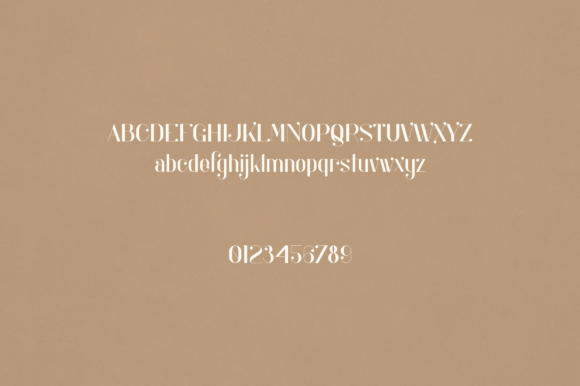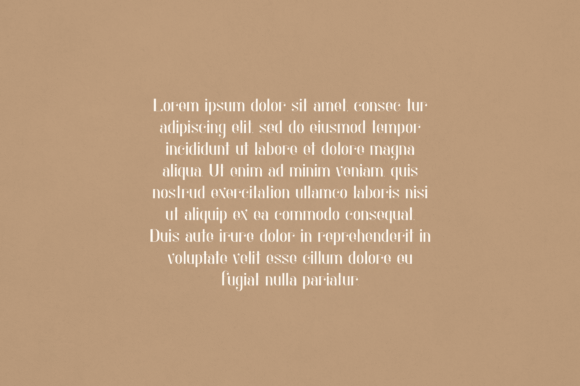
Aldari Font: Elevate Your Typography with Elegance and Versatility
Are you tired of using the same old fonts for your design projects? Look no further than Aldari Font, an elegant and versatile display font that will take your typography to the next level. With its unique charm and sophisticated style, Aldari is perfect for designers and crafters looking to add a touch of luxury to their work.
What is Aldari Font?
Aldari Font is a display font designed to make your typography truly unique. Its elegant and versatile design makes it perfect for a wide range of applications, from logos and branding to headlines and plain text. Whether you’re working on a branding project, home-ware design, product packaging, or magazine header, Aldari Font is the perfect choice.
Key Features of Aldari Font
- Elegant and Versatile Design: Aldari Font boasts an elegant and versatile design that will add a touch of sophistication to any project.
- Unique Charm: With its unique charm, Aldari Font will make your typography stand out from the crowd.
- Perfect for Branding Projects: Aldari Font is perfect for branding projects, including logos, business cards, and letterheads.
- Suitable for Home-Ware Designs: Add a touch of elegance to your home-ware designs, including product packaging and labels.
- Great for Magazine Headers: Use Aldari Font to create stunning magazine headers that will grab attention.
- Works Well as a Text Overlay: Aldari Font is perfect for use as a stylish text overlay to any background image.
Why Choose Aldari Font?
There are many reasons why Aldari Font stands out from the crowd. Here are just a few:
- High-Quality Design: Aldari Font is designed with high-quality and attention to detail, ensuring that it will look great in any project.
- Easy to Read: Despite its elegant design, Aldari Font is easy to read, making it perfect for use in a wide range of applications.
- Versatile: Aldari Font is incredibly versatile, making it perfect for use in a wide range of projects, from logos and branding to headlines and plain text.
How to Use Aldari Font
Using Aldari Font is easy. Here are a few tips to get you started:
- Use it as a Display Font: Aldari Font is perfect for use as a display font, making it great for headlines, titles, and logos.
- Experiment with Different Sizes: Don’t be afraid to experiment with different sizes to find the perfect fit for your project.
- Pair it with Other Fonts: Aldari Font works well with other fonts, making it perfect for use in combination with other typefaces.
Here are a few tips for designers and crafters looking to get the most out of Aldari Font:
- Use it to Add a Touch of Luxury: Aldari Font is perfect for adding a touch of luxury to your designs.
- Experiment with Different Colors: Don’t be afraid to experiment with different colors to find the perfect fit for your project.
- Use it to Create a Unique Brand Identity: Aldari Font is perfect for creating a unique brand identity that will set you apart from the competition.
In conclusion, Aldari Font is an elegant and versatile display font that is perfect for designers and crafters looking to add a touch of luxury to their work. With its unique charm and sophisticated style, Aldari Font is sure to make your typography truly unique. Whether you’re working on a branding project, home-ware design, product packaging, or magazine header, Aldari Font is the perfect choice.